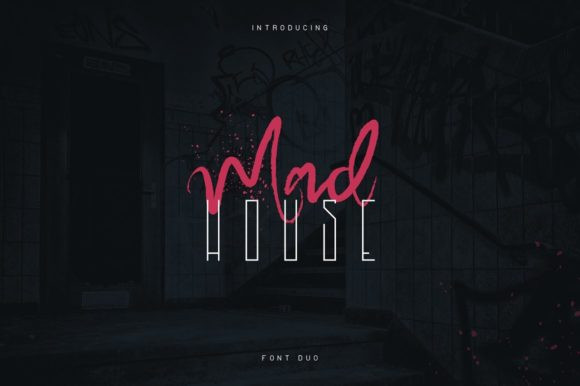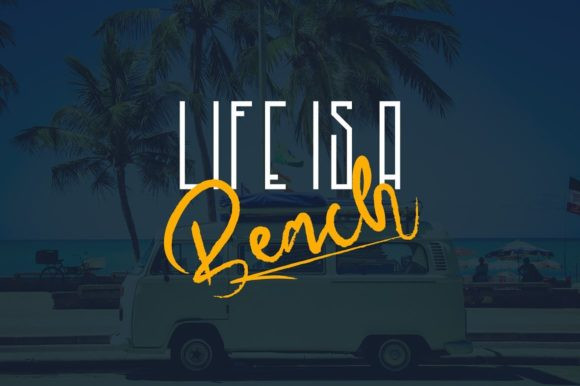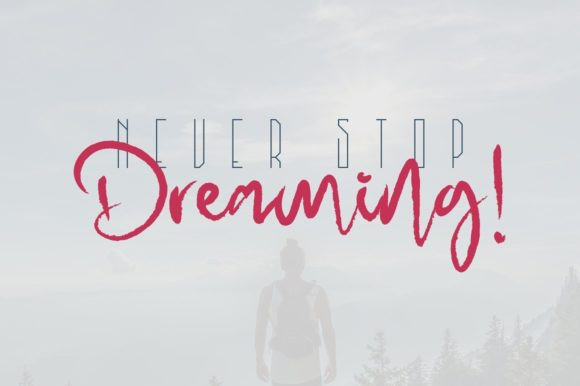
Mad House Font
Mad House FontMad House is a cool and adaptable duo font (sans serif and handwritten). This original look will appeal to a wide range of crafty ideas, from letterheads and titles, to stationery.